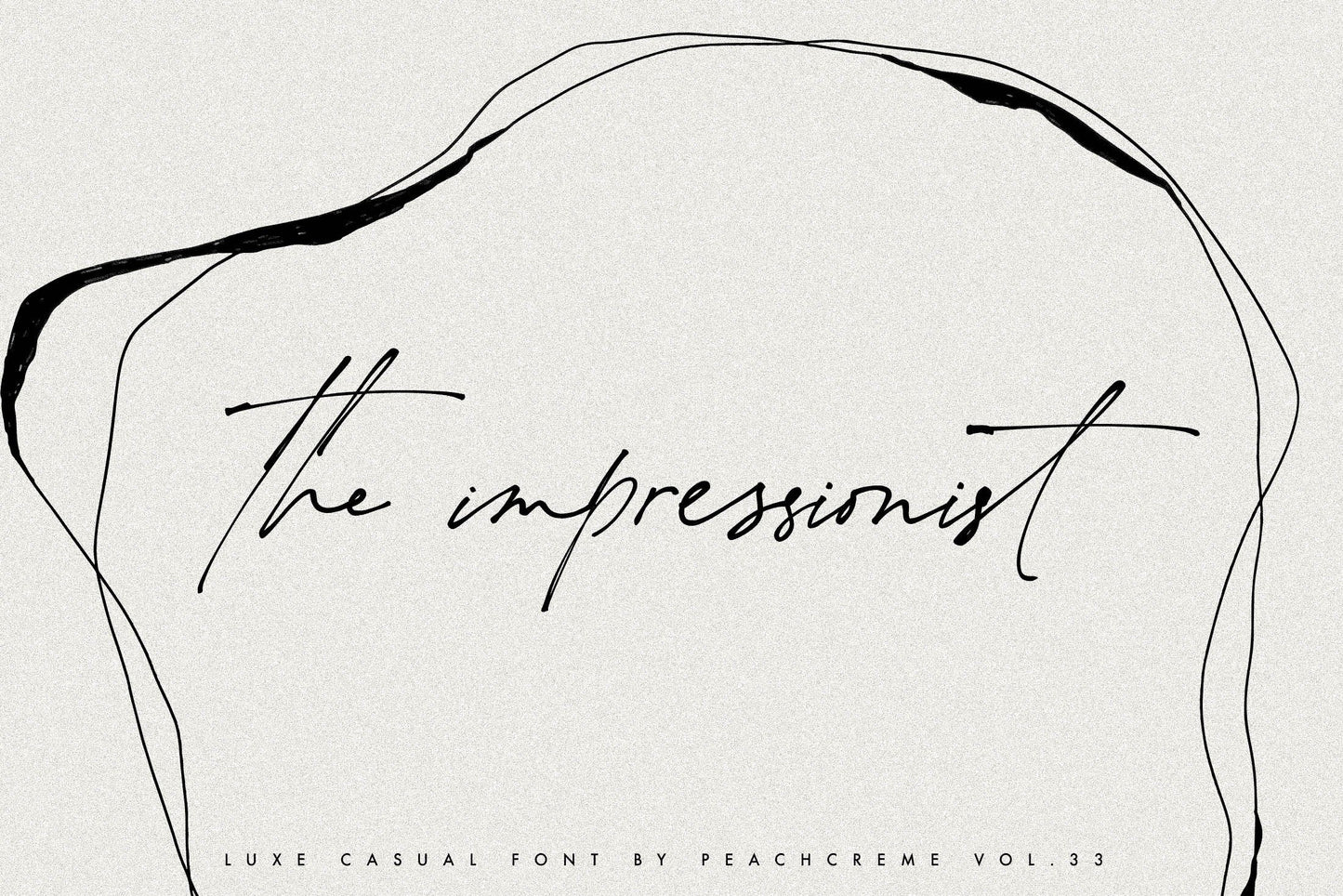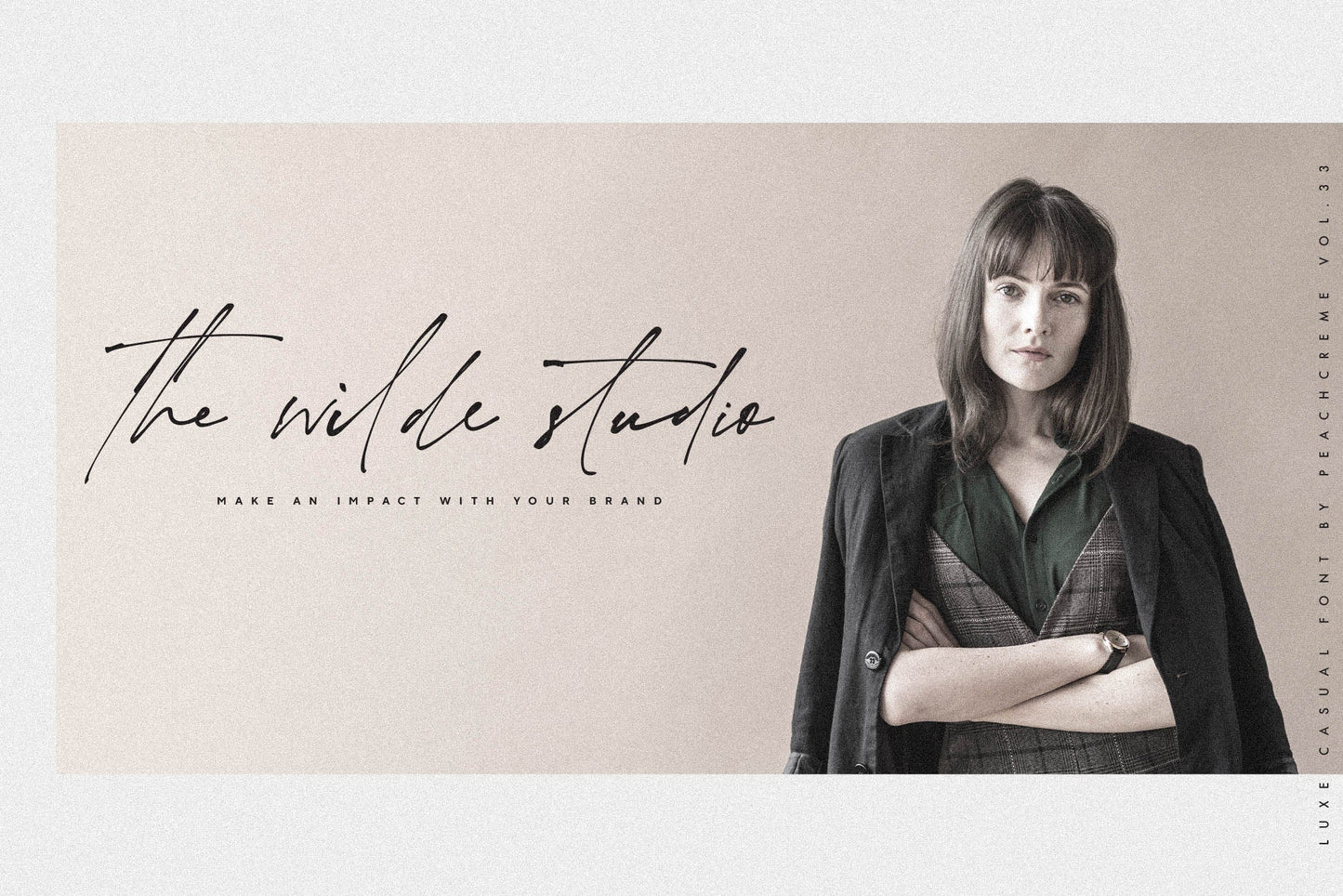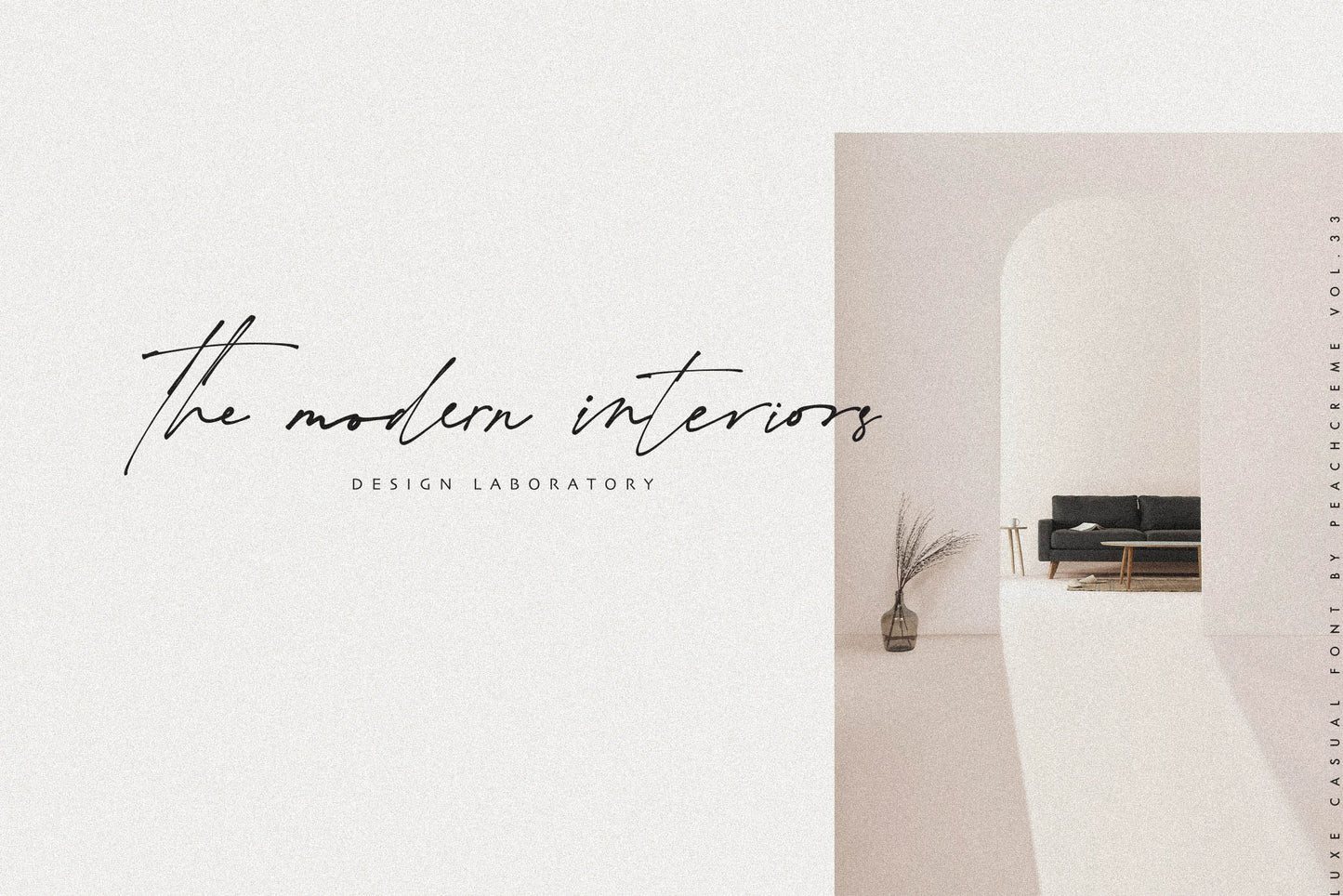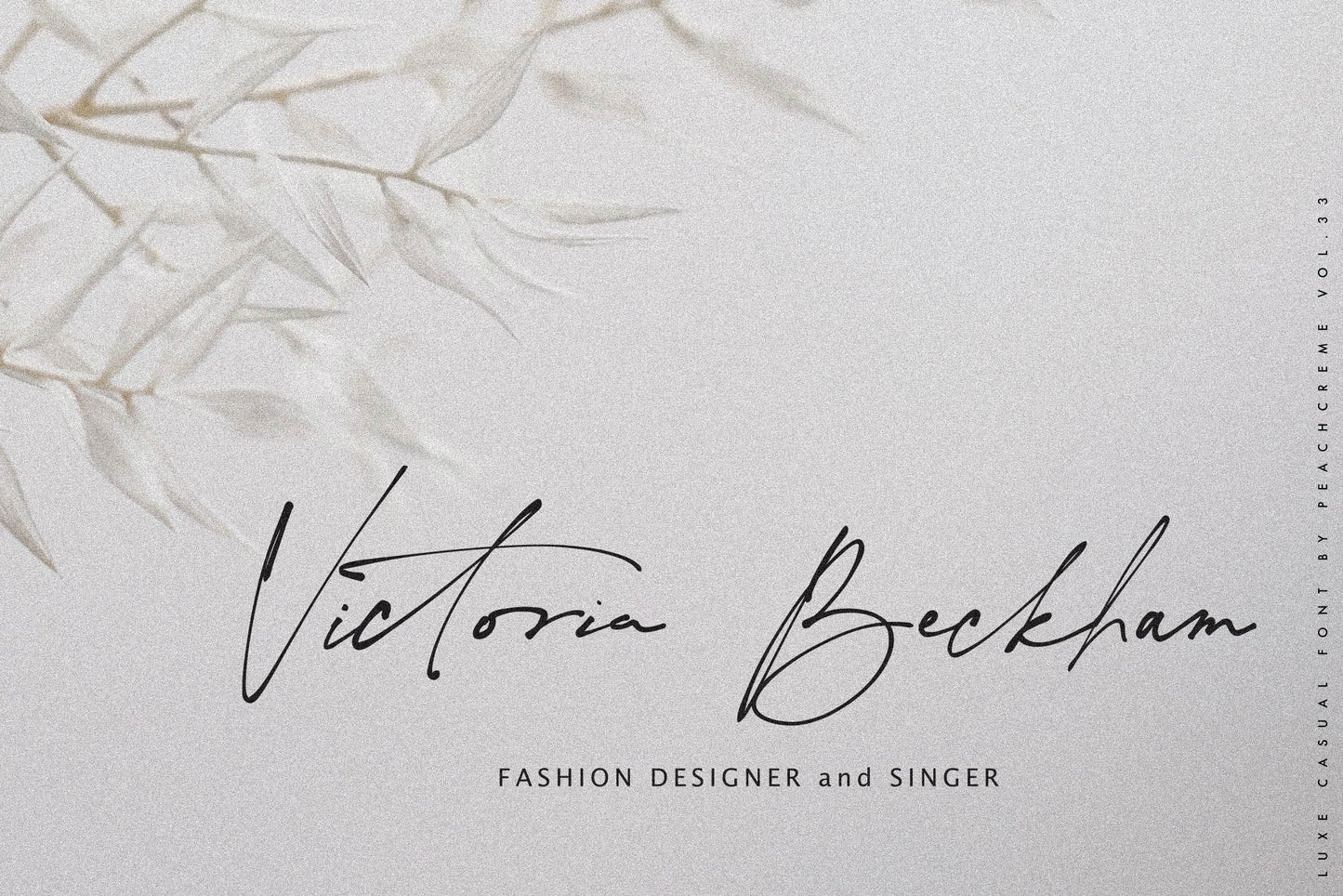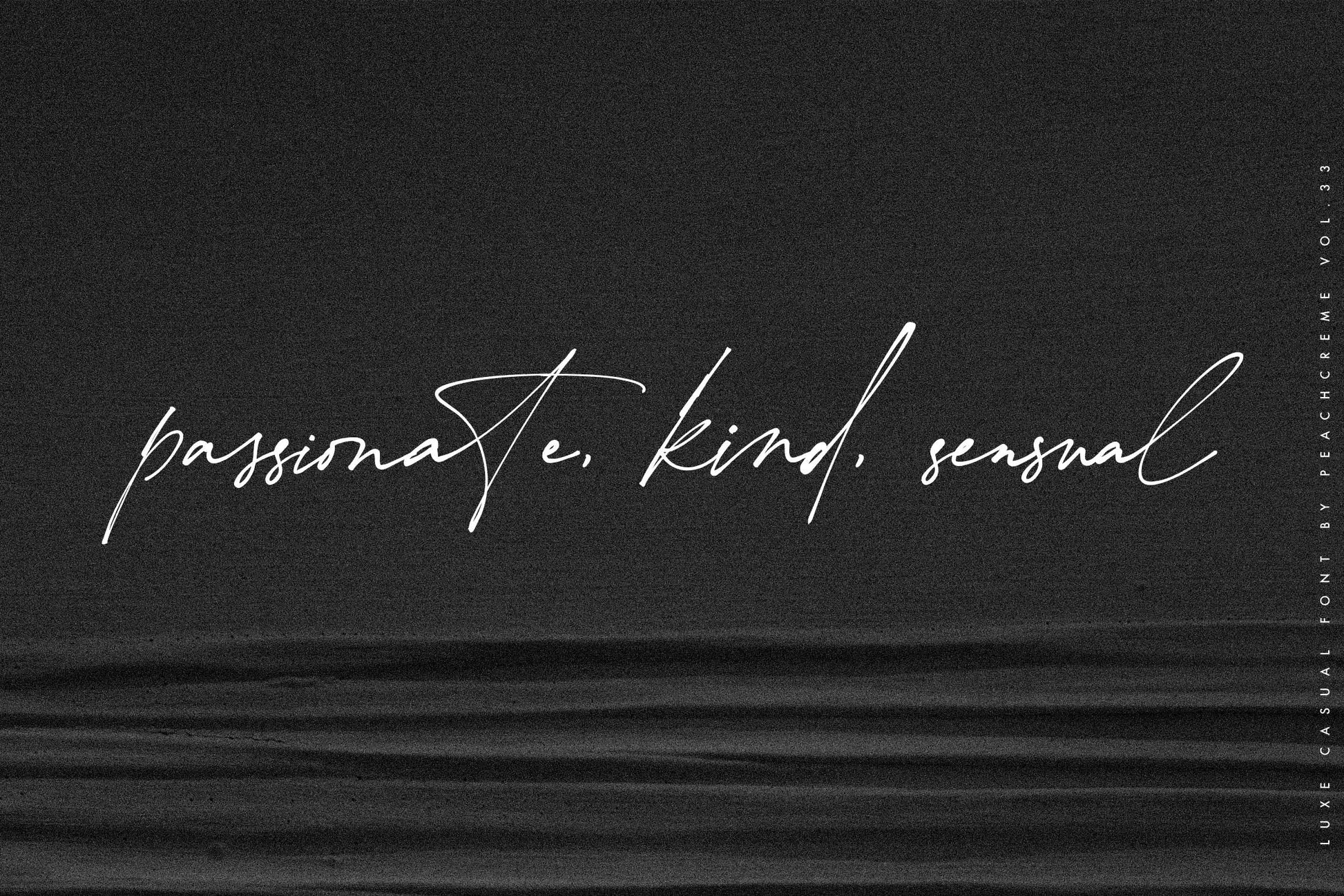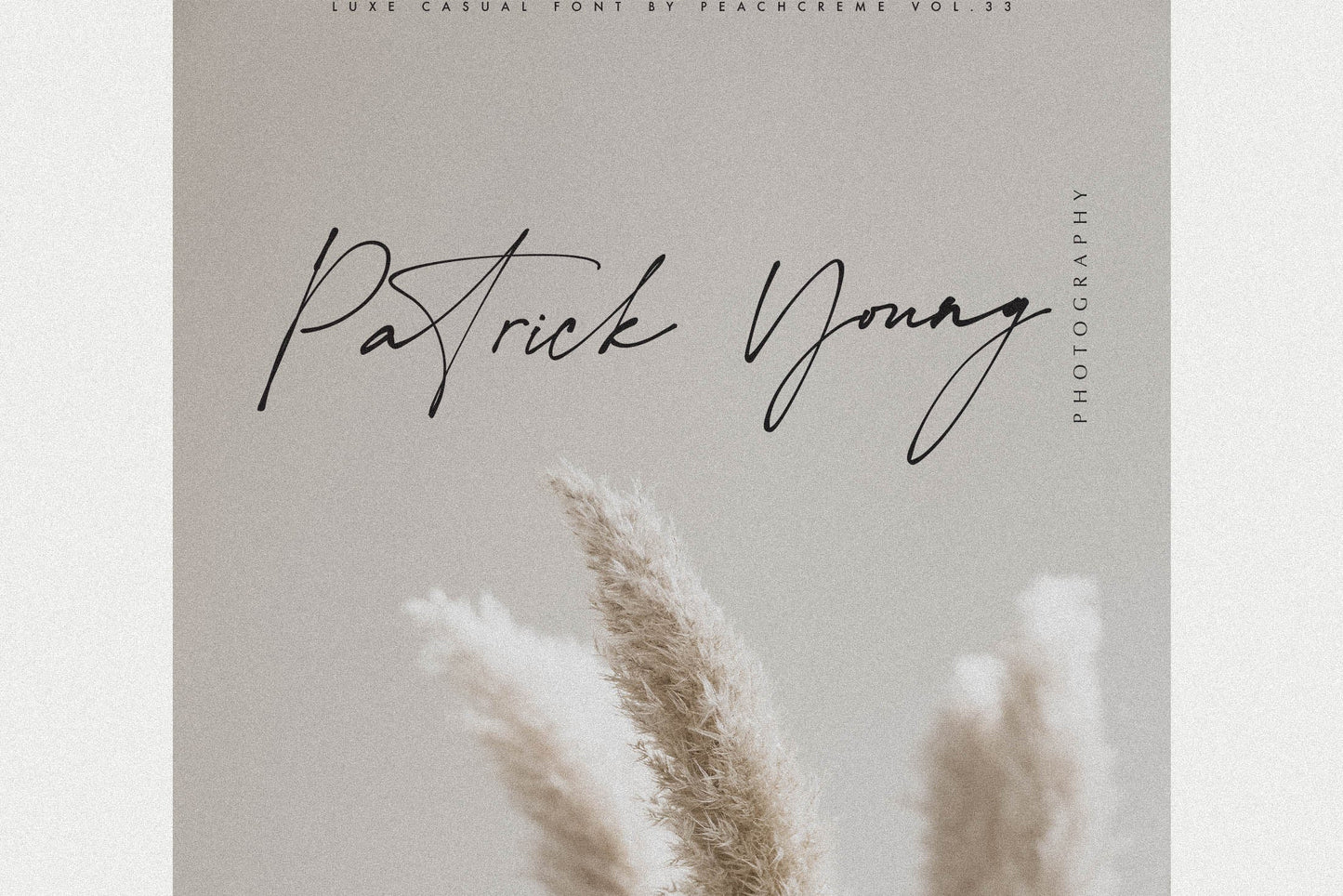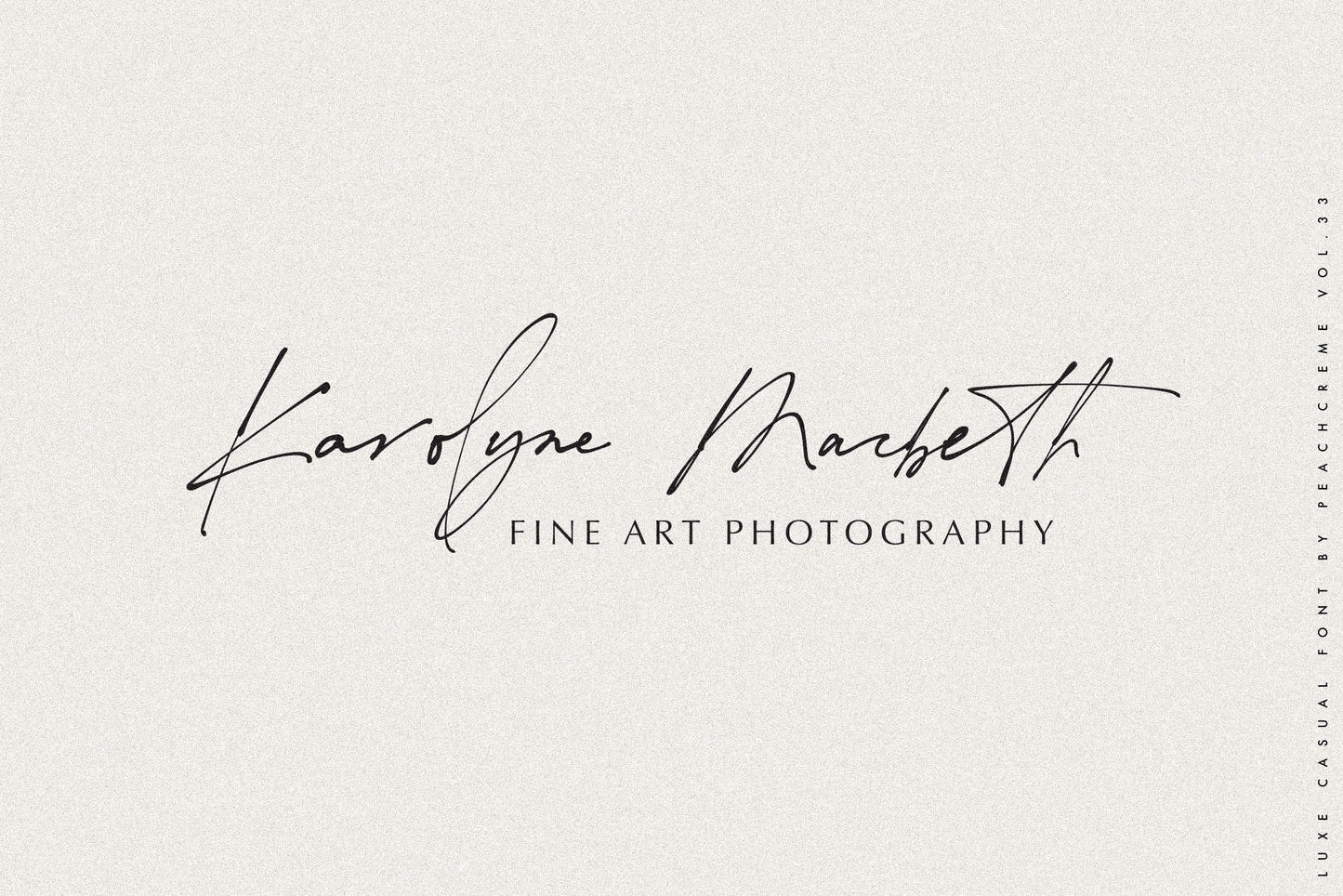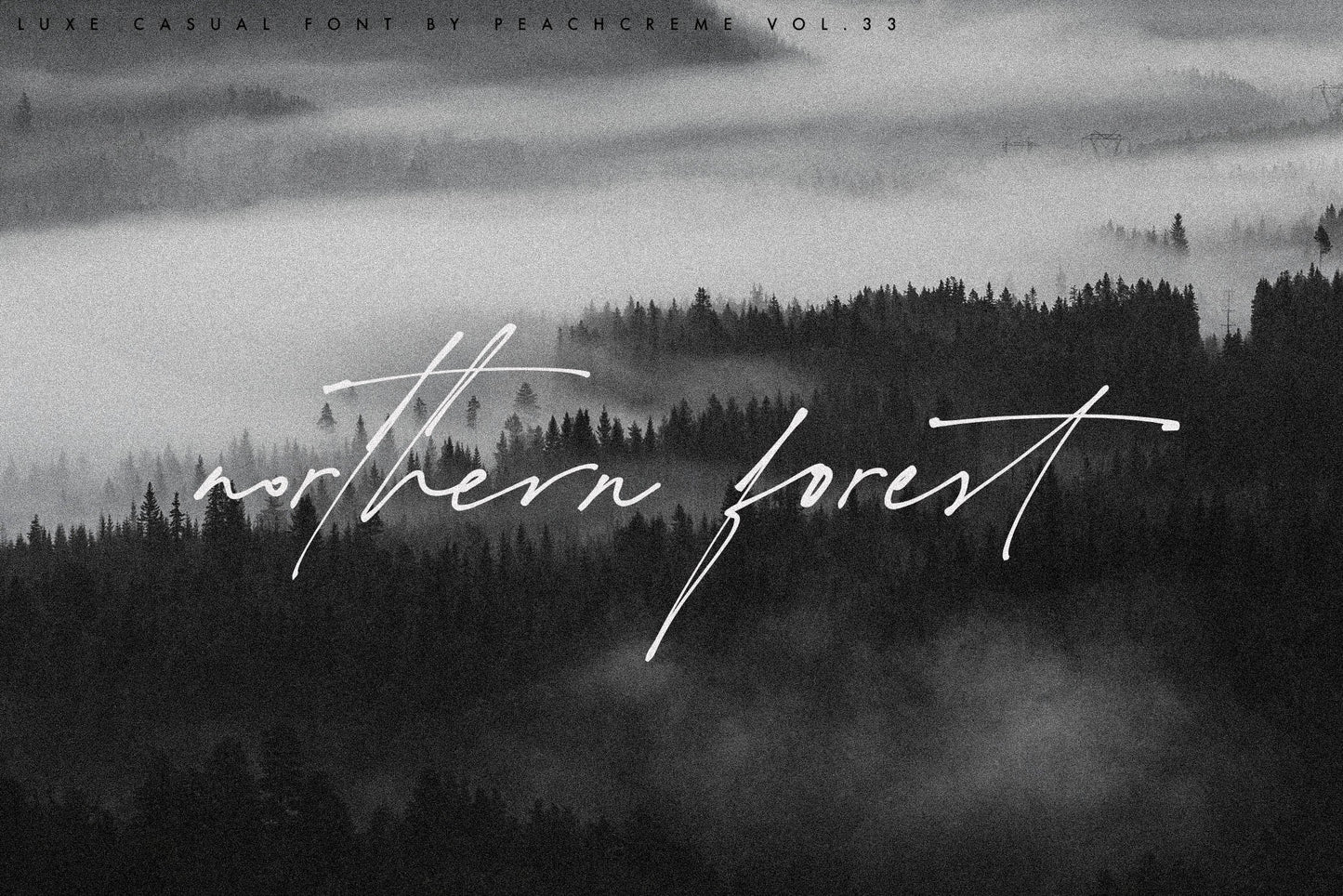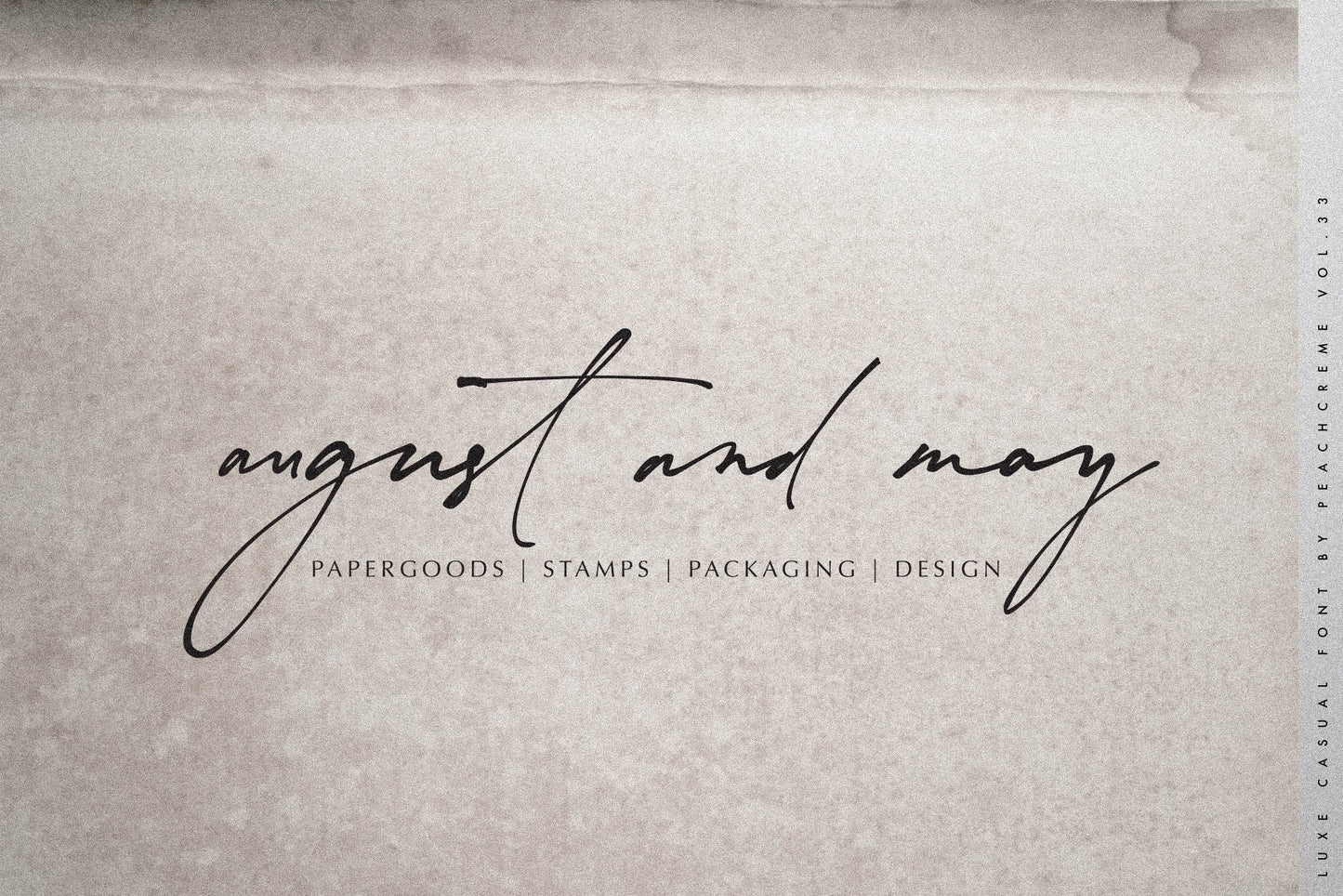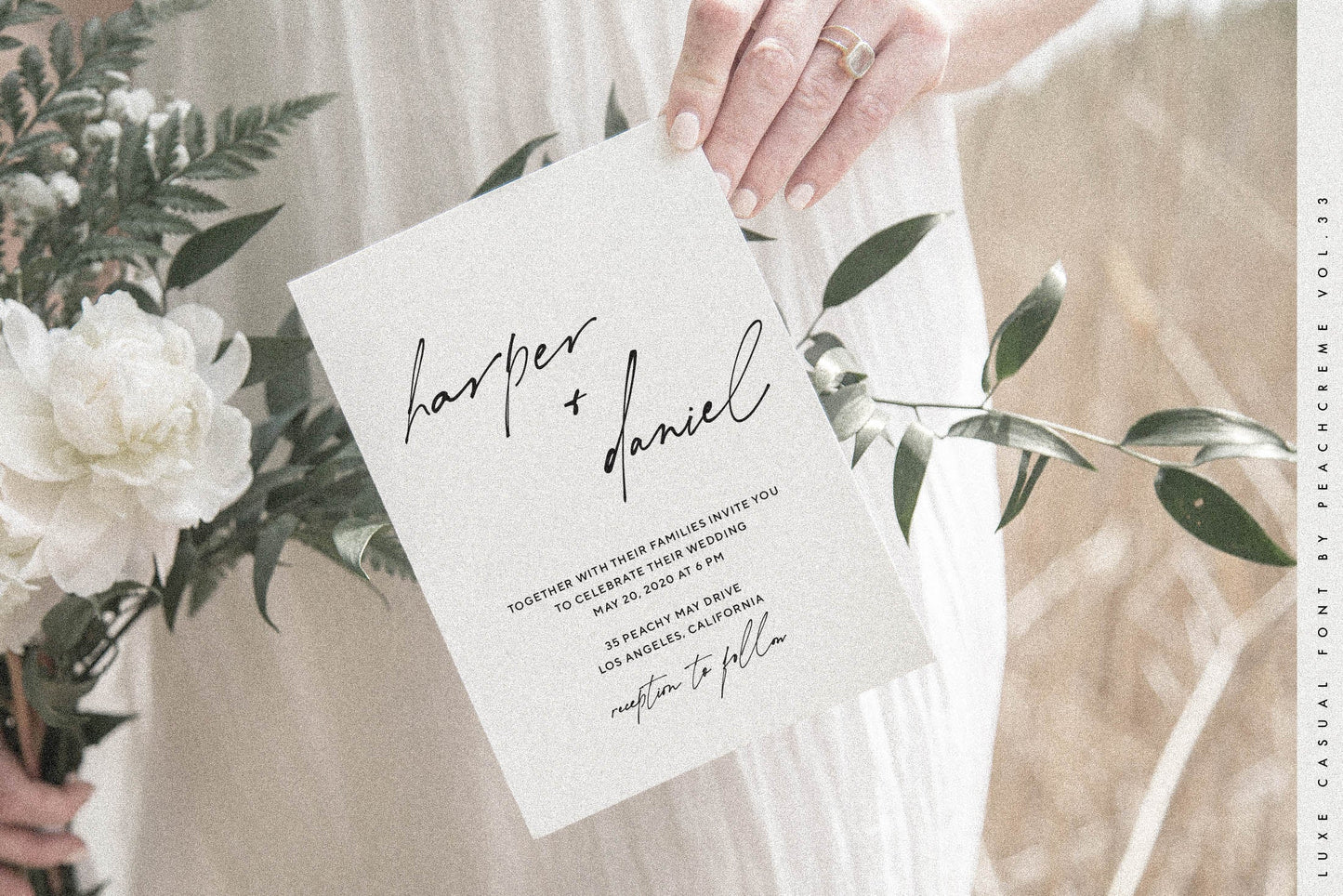
the impressionist Font
LUXURY FINE ART TYPOGRAPHY VOL.33
the impressionist. this font is about fleeting vision, touch of moments. some letters may be illegible, but their shapes arouses emotions. sometimes in design emotions are more important. our brain can uncode the letter shapes.
It includes full set of uppercase and lowercase letters, multilingual symbols, numerals, punctuation and 134 ligatures. The font has smooth wet ink texture.